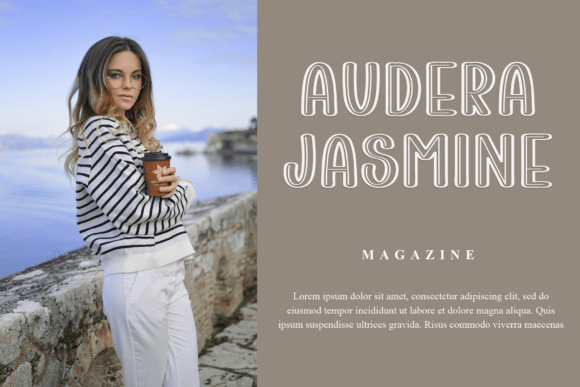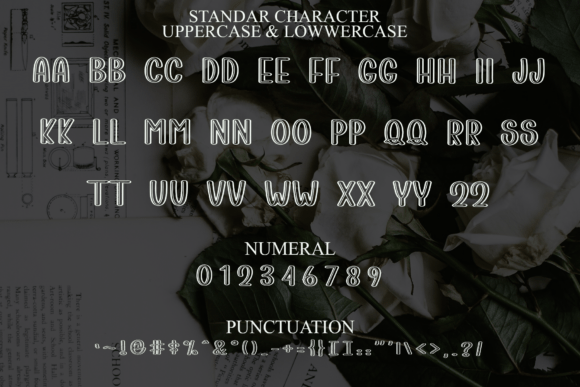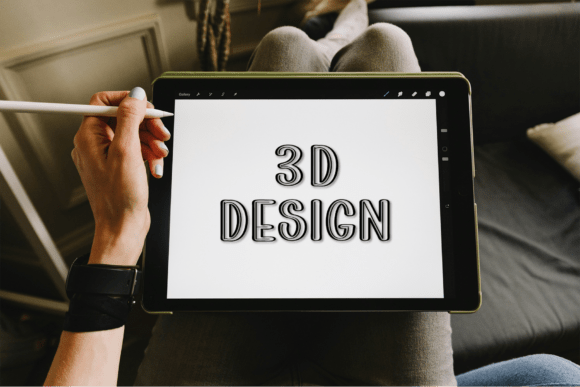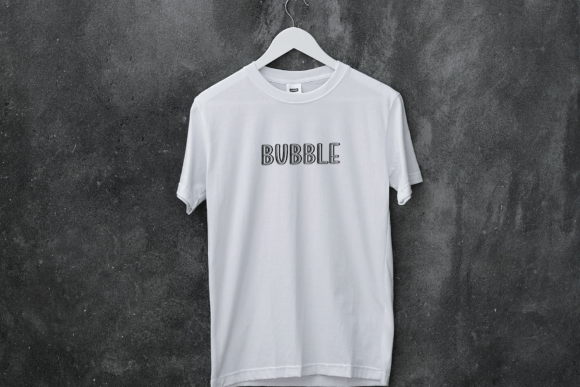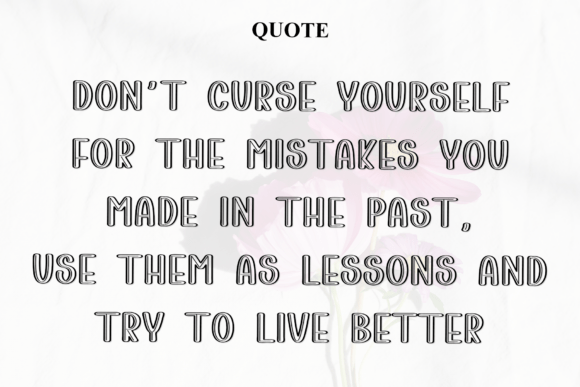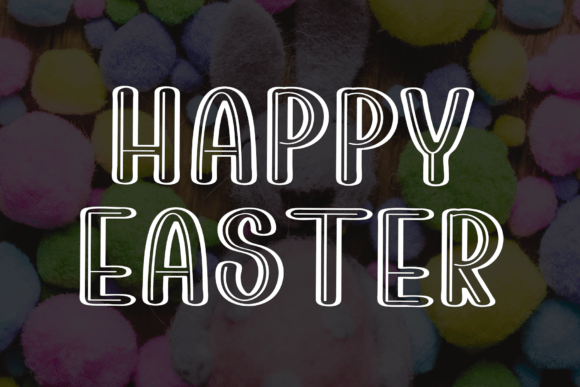
Introduction to Easter Bubble Font
As a designer, have you ever found yourself stuck in a creative rut, searching for the perfect font to bring your project to life? I know I have. That’s why I’m excited to share with you the Easter Bubble Font, a game-changing design resource that’s sure to elevate your work.
Imagine being able to add a touch of whimsy and charm to your designs with a single click. The Easter Bubble Font makes it easy, with its unique strokes and soft, natural feel. Whether you’re working on a free download project or creating a high-quality design resource, this font is the perfect addition to your toolkit.
With its transparent background and versatile style, the Easter Bubble Font is ideal for a wide range of creative projects. From crafting to design, this font is sure to make your work stand out and leave a lasting impression on your audience.
Key Features of Easter Bubble Font
- High-quality design resource perfect for creative projects, including Easter-themed decorations and designs.
- Features a transparent background, making it ideal for overlaying on images or using as a standalone design element.
- Unique bubble-style characters and Easter-themed graphics, adding a playful touch to any design project.
- Perfect for designers, artists, and crafters looking for a creative and eye-catching design resource for their Easter-themed projects.
Honest Review: Easter Bubble Font
As a designer, I’m always on the lookout for unique and creative fonts to add a touch of personality to my projects. The Easter Bubble Font caught my attention with its playful and whimsical style. I was excited to see how it would work in a real-world design project.
- ✨ The Easter Bubble Font has a transparent background, making it easy to use on any color or design without worrying about a cluttered look.
- ✨ The high-quality design ensures that the font looks crisp and clear, even at larger sizes.
- ⚠️ The font is limited to a specific style and theme, making it less versatile for more serious or professional projects.
- ⚠️ The font may not be suitable for projects that require a lot of text, as the bubble style can make the text difficult to read.
Overall, I think the Easter Bubble Font is a great addition to any designer’s toolkit, especially for creative projects that require a playful and whimsical touch. With its high-quality design and transparent background, it’s a great resource to have on hand. Just be mindful of its limitations and use it accordingly.
Easter Bubble Font
To get the most out of the Easter Bubble Font, experiment with different font sizes, colors, and combinations. Common use cases include social media graphics, posters, presentations, and documents that require a playful and creative touch.